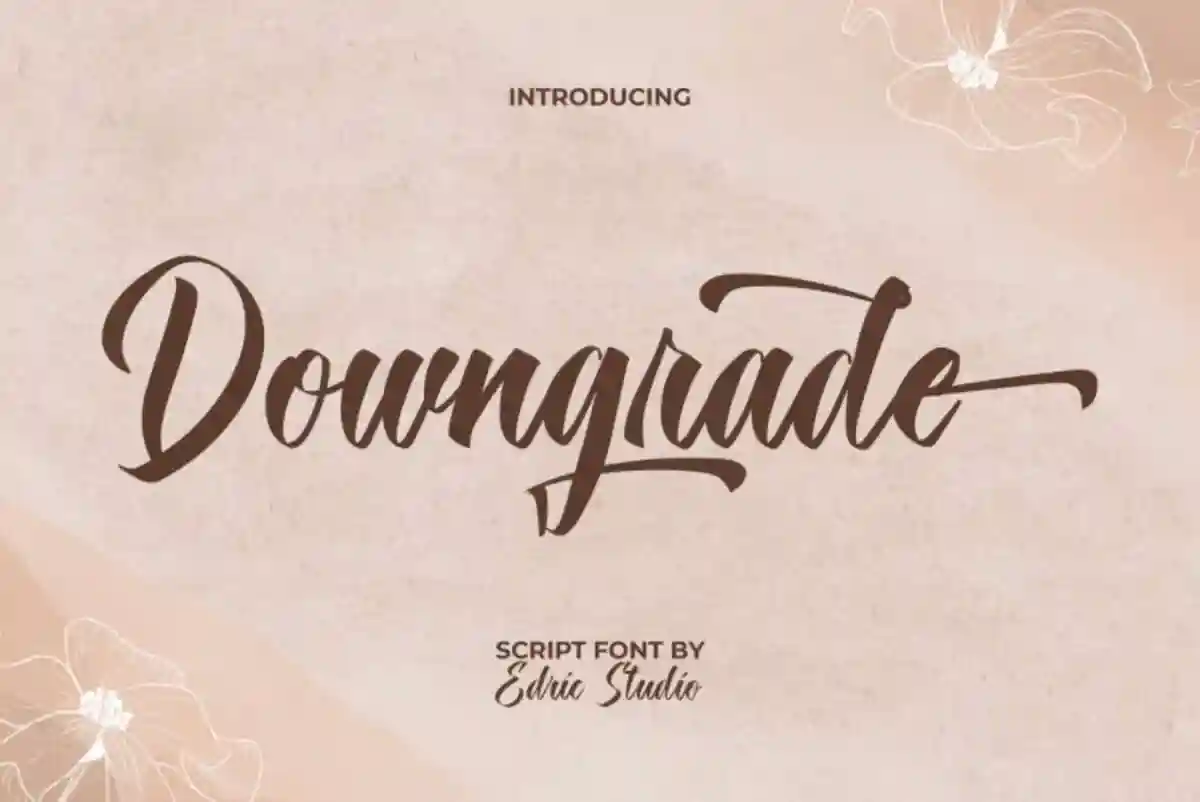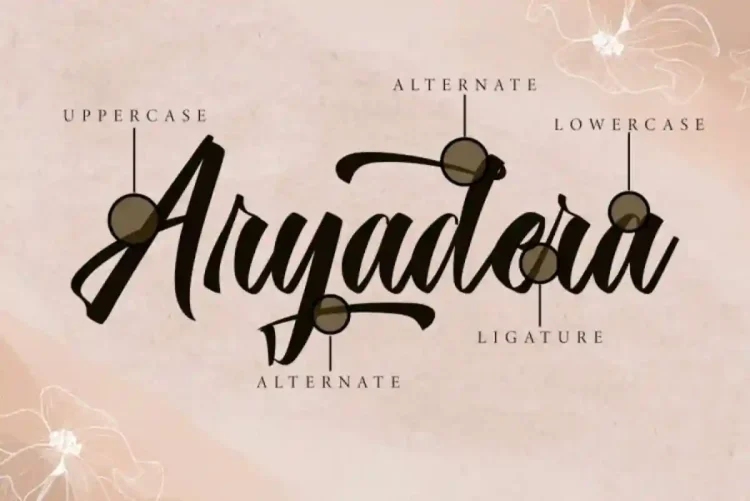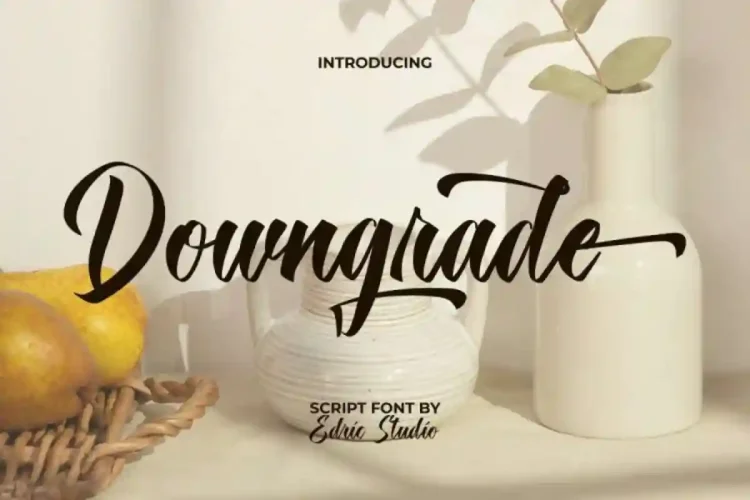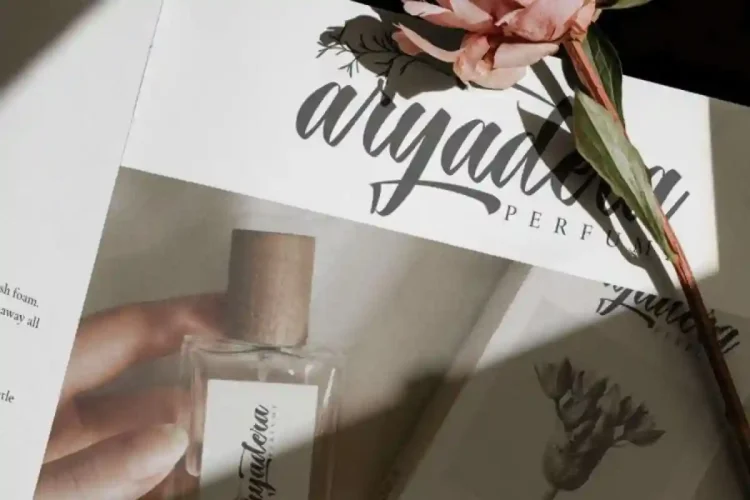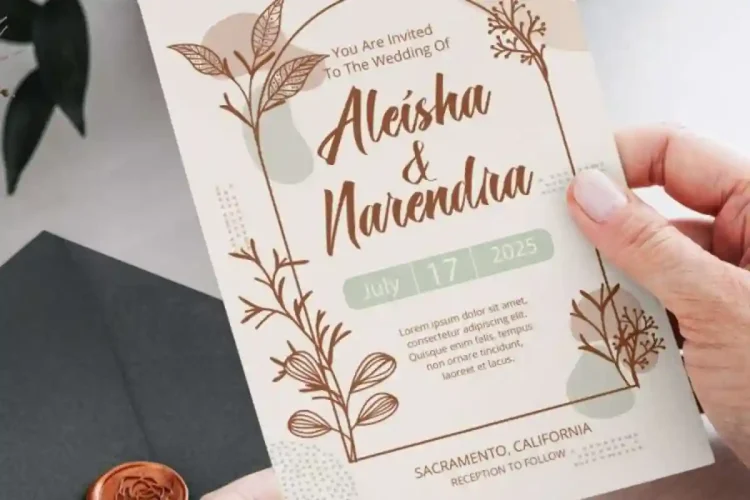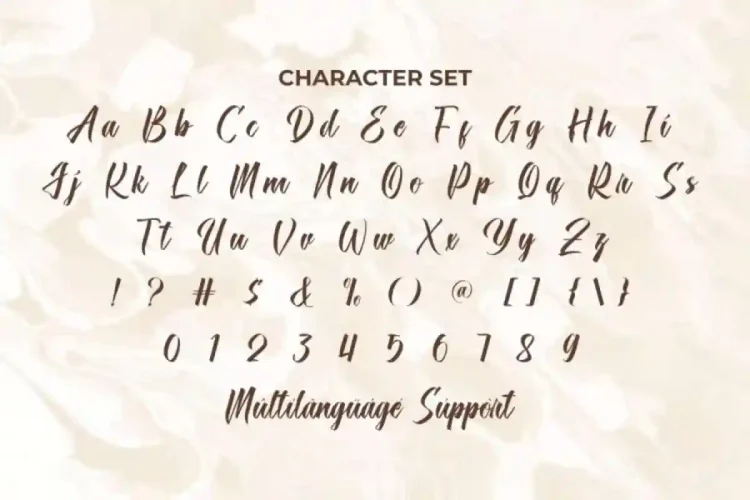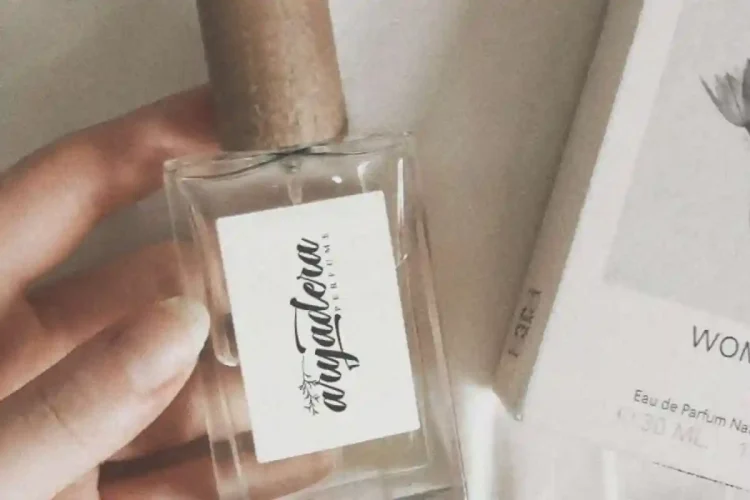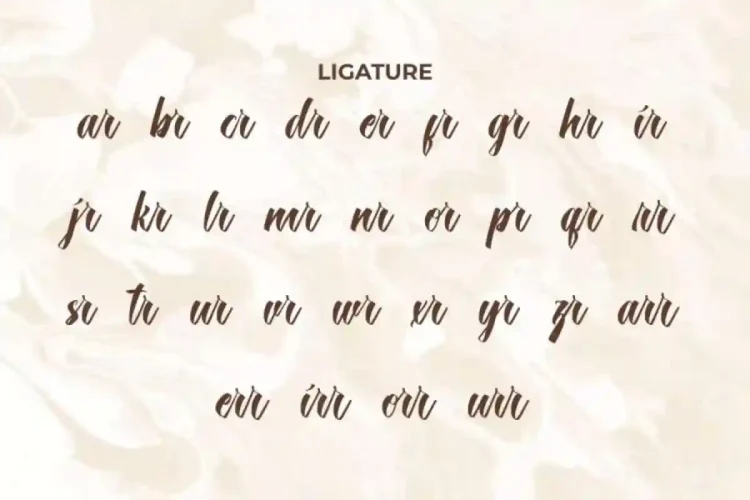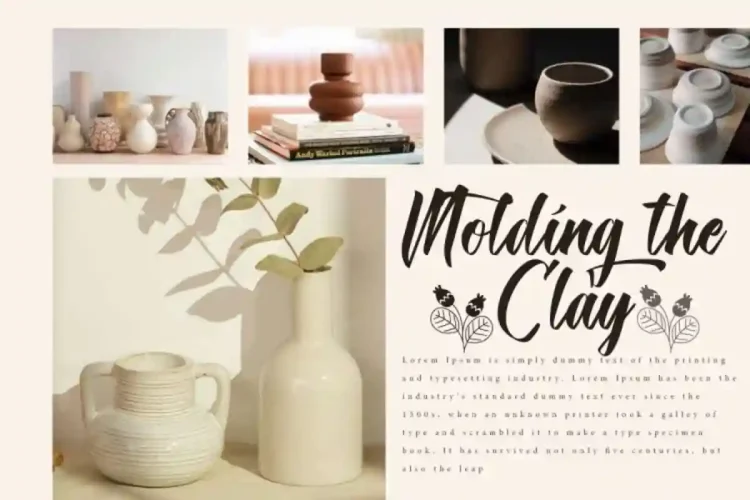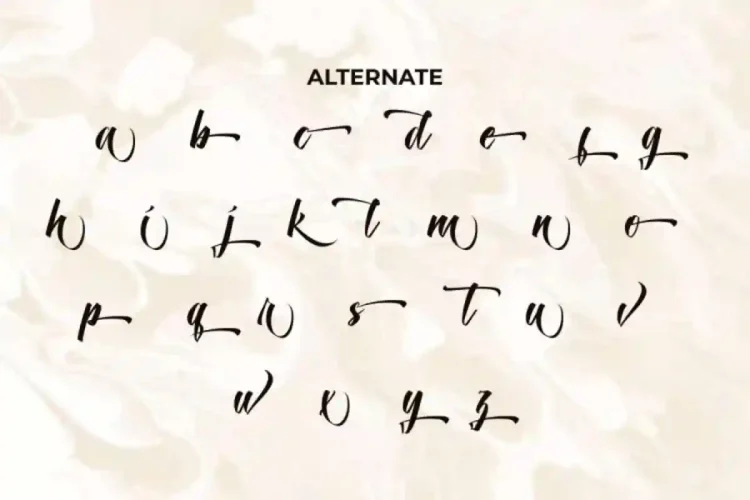
Downgrade Brush Script Font
Downgrade Brush Font a handcrafted brush script typeface designed to capture attention and express creativity. With smooth strokes and natural brush details, this font delivers a modern and artistic feel, making it the perfect choice for standout design work.
Downgrade Brush Script Font provides a full set of Basic Uppercase and Lowercase Characters, Numbers, Punctuation, Symbols, Ligature, and Alternate. Original handcrafted typography with an aesthetic look. This will always convey the feelings of the maker to the wearer. Its versatile style is ideal for a wide range of industries including fashion, boutique, florist, skincare, real estate, furniture, spa salon, event organizer, advertising, and more.
Downgrade Font a playful typeface with unique decoration in each character. It’s tested to work well in the Adobe Apps (Illustrator, Adobe InDesign, Adobe Photoshop) even work on Microsoft Word. Thanks to its PUA encoding, every glyph is accessible for custom design freedom.